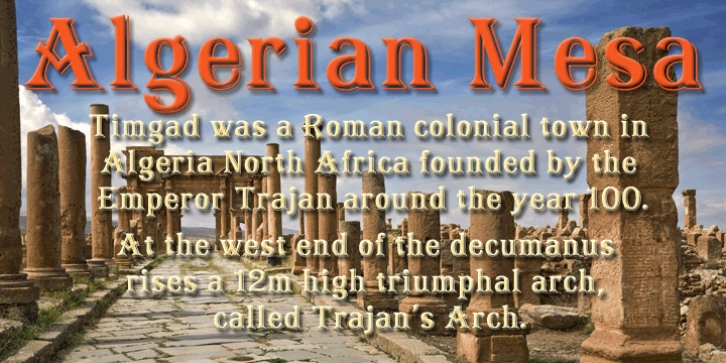
Algerian Mesa downloadDesigner: Michael Hagemann
Publisher: FontMesa
Inspired by the old Caps only font Algerian, this version, named Algerian Mesa, has been freshened up with a new matching lowercase.
Versions included in the set are regular, plain, alt caps and plain alt caps.